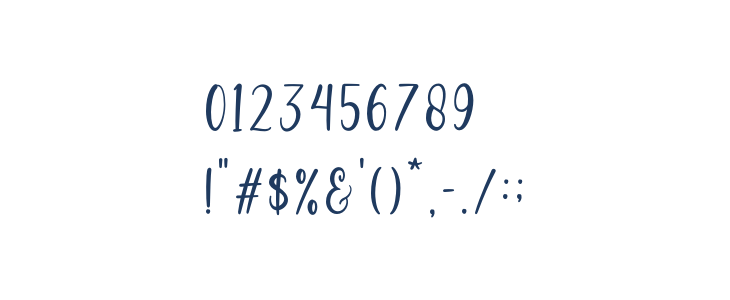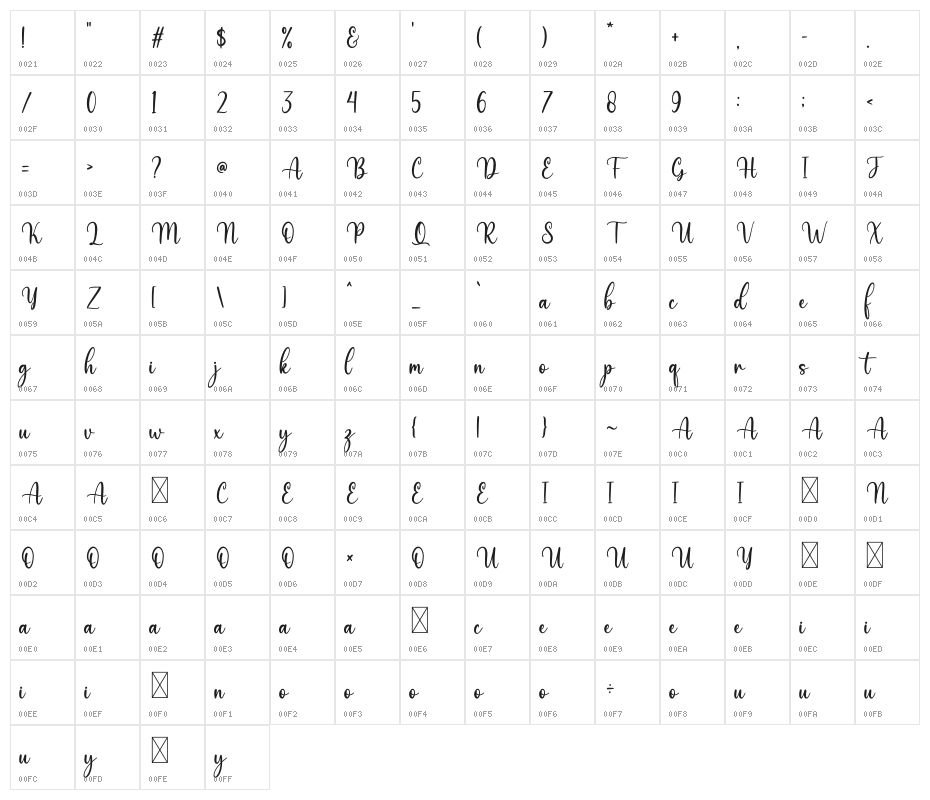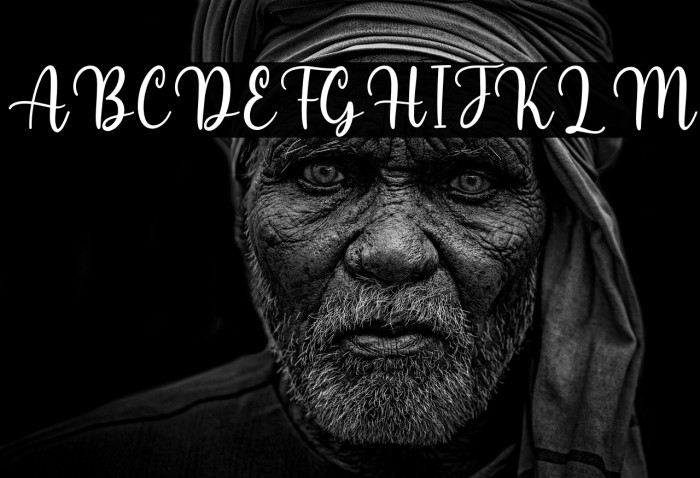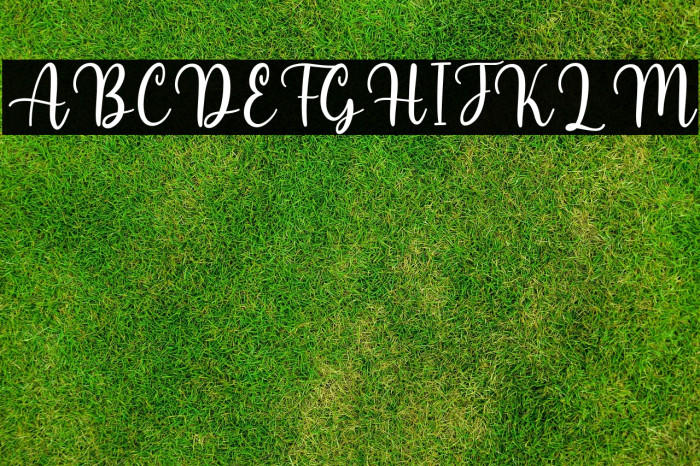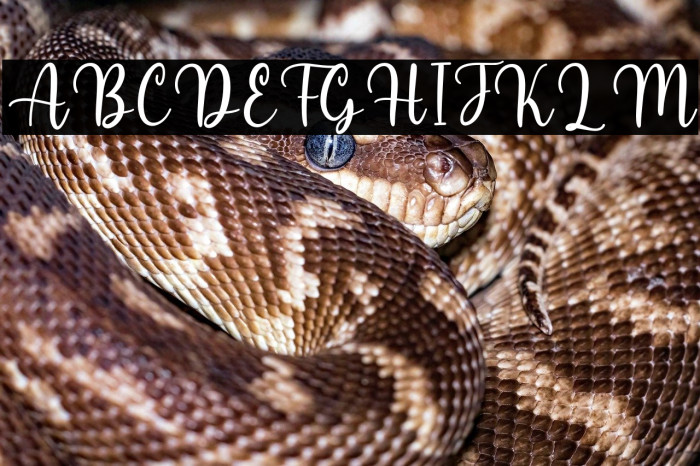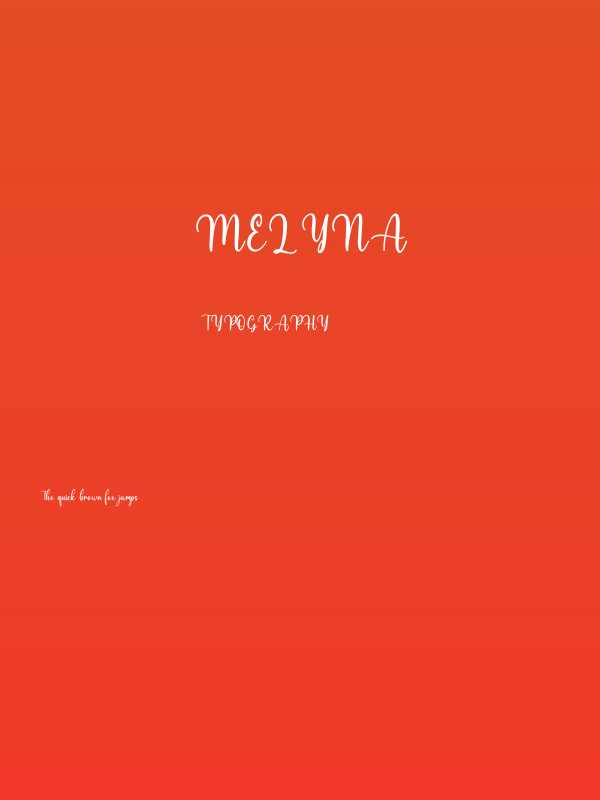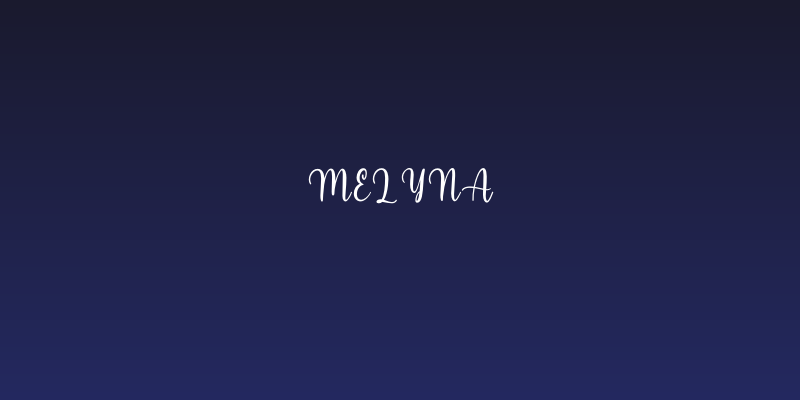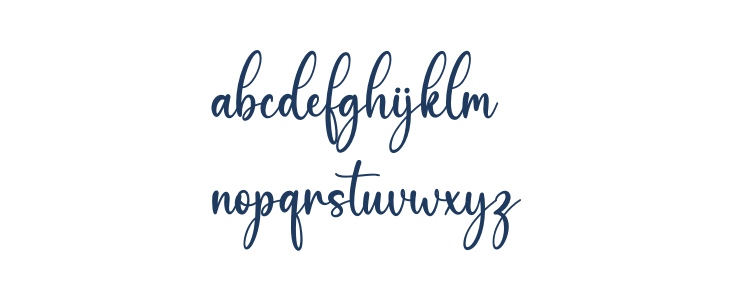
Melyna Font
✎ Script
Melyna Description
This font features a flowing, cursive style that exudes elegance and sophistication. The uppercase letters are beautifully crafted with sweeping curves and flourishes, giving them a sense of movement and grace. The lowercase letters maintain a consistent style, with smooth, rounded forms that enhance readability while retaining the decorative flair. The numerals are clear and distinct, complementing the overall aesthetic with their balanced proportions. Special characters are thoughtfully designed to match the font's ornate style, making it versatile for various uses. The font's overall appearance is both classic and modern, making it suitable for a wide range of design projects.
| Overall Style | Elegant, Modern |
| Use Case | Logos, Invitations, Branding |
| Proposed Projects | Ideal for wedding invitations, branding, logo design, and elegant stationery. |